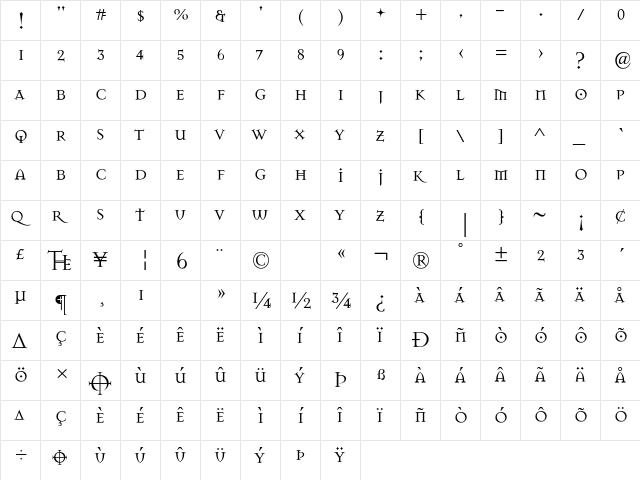
MasonSuper Regular
Design Context for MasonSuper Typeface
MasonSuper is a composed and adaptable typeface that performs quietly and consistently across a wide range of design contexts.